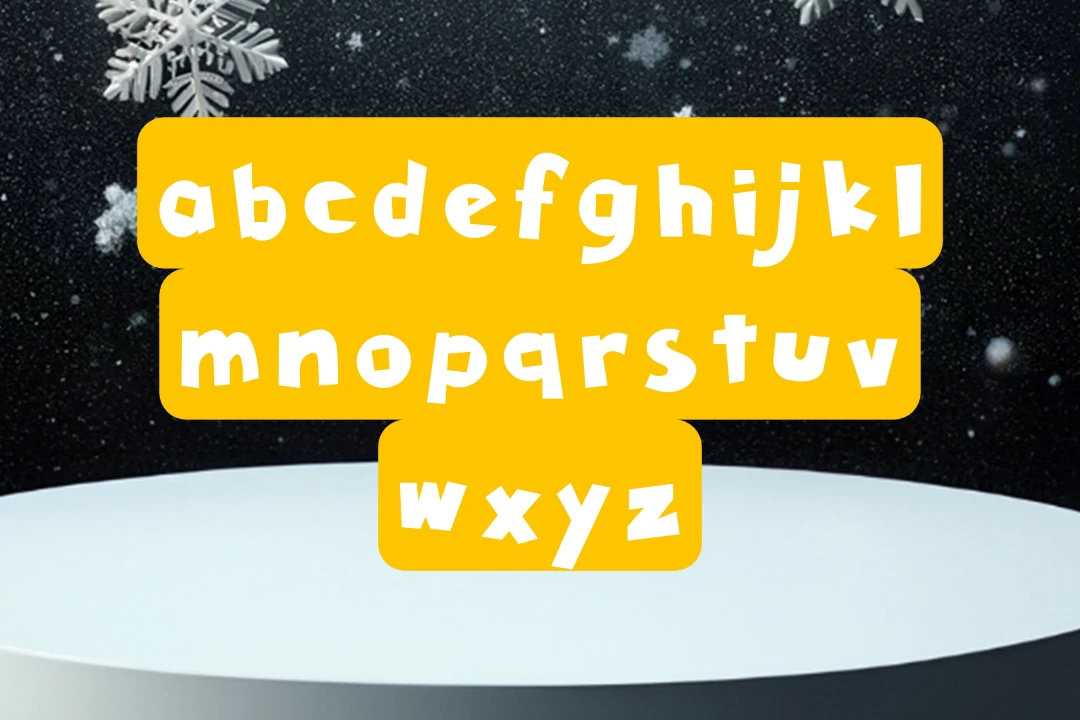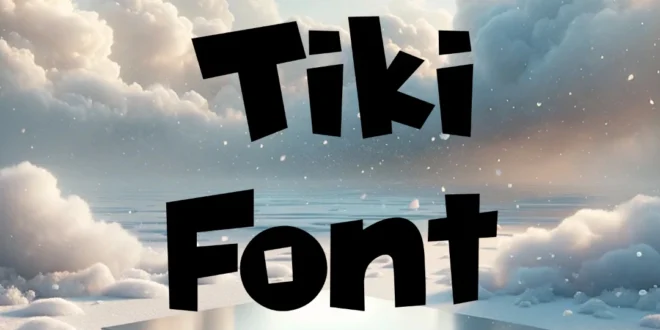
The Tiki Font Family was crafted by Daniel Pelavin and is offered through Pelavin Fonts. This family includes two distinct styles and comes with various package options to suit different design needs.
It is a playful texture decorative typeface created to embody the spirit of island life and tropical themes. Typically categorized under Display Fonts.
This font is ideal for designs that need a fun, exotic touch. Its unique style is inspired by traditional Polynesian aesthetics, making it a popular choice for beach-themed events, Tiki bars, and playful, summery projects.
Uses of Tiki Font in Design
1. Event Branding for Beach and Luau Themes: This texture is perfect for creating an island vibe for beach parties, luau invitations, and tropical-themed events.
2. Restaurant and Bar Signage: This font’s bold and thematic appearance makes it ideal for menu designs, signage, and decor at tropical-themed restaurants and Tiki bars.
3. Posters and Merchandise: It is a unique aesthetic that brings a summery, tropical feel to posters, t-shirts, and merchandise designs, adding a fun flair to various projects.
| Designer | Daniel Pelavin |
| Category | Display |
| Style | Regular, Bold |
What makes Tiki texture unique?
Its island-inspired strokes and playful, bold letters make it a standout choice for tropical and beach-themed designs.